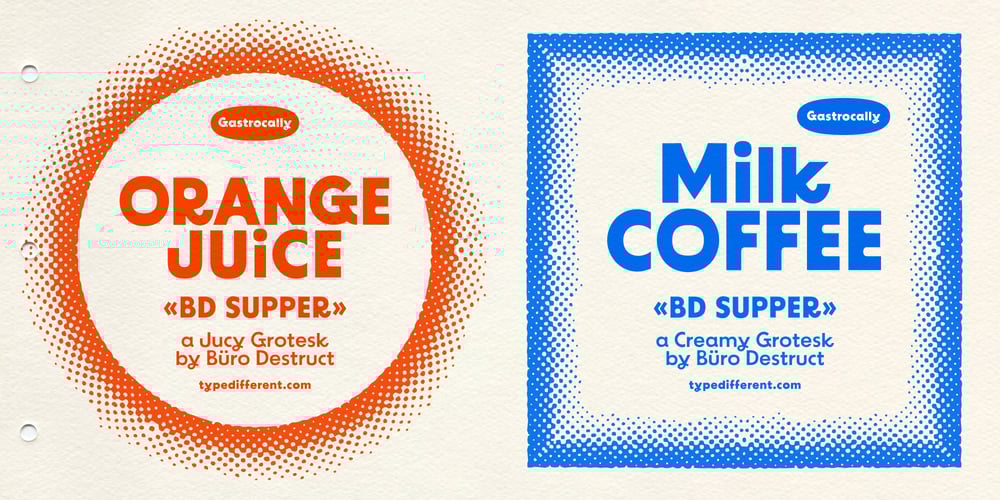
BD Supper Font Family was designed by Lorenz (Lopetz) Gianfreda and published by Typedifferent. BD Supper contains 2 styles and family package options. “BD Supper” is a friendly and humorous geometric-organic sans serif typeface great for use on food packaging and in gastronomy-related topics. It features a wide selection of alternate characters to choose from. Use them as you like. With two weights regular and bold, «BD Supper» fits the needs to structure a body text with a headline and to create logotypes.